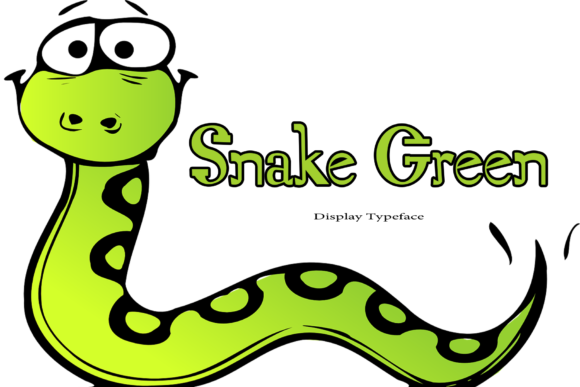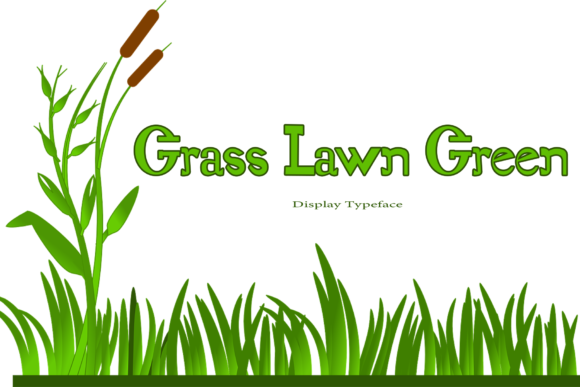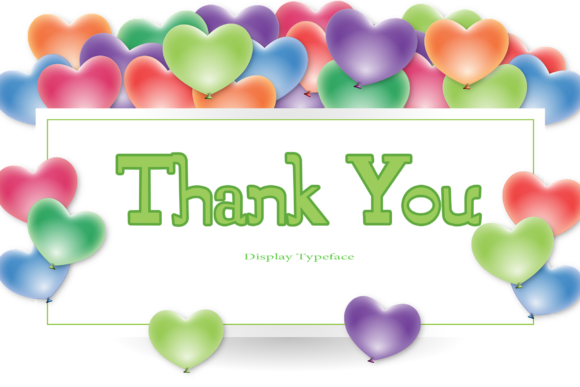
Baby Boy Font: Elevate Your Designs with a Unique Serif Style
In the world of typography, fonts play a crucial role in making or breaking a design. For designers and crafters looking to add a touch of uniqueness and attractiveness to their product designs, the Baby Boy font is an excellent choice. This specially crafted serif font boasts a creative design that sets it apart from more traditional typography, making it perfect for those seeking to elevate their visual creations.
What Makes Baby Boy Font Stand Out?
The Baby Boy font is not just another serif font; it’s a unique blend of classic and modern design elements. Its distinctive shape and creative flair make it an eye-catching addition to any design project. Whether you’re working on branding, packaging, or digital content, this font can help you achieve a look that’s both sophisticated and engaging.
Key Features of Baby Boy Font
- Unique Serif Design: The Baby Boy font features a specially designed serif style that gives it a unique personality. The serifs are carefully crafted to add a touch of elegance and sophistication to your designs.
- Creative Flair: What sets Baby Boy apart is its creative design elements. The font incorporates subtle nuances that make it stand out in a crowd, perfect for designers looking to add a bit of flair to their work.
- Versatility: Despite its unique design, the Baby Boy font is surprisingly versatile. It can be used across a range of design projects, from luxury branding to digital content creation.
- Easy to Read: While the font has a distinctive look, it’s also designed with readability in mind. This makes it suitable for both headings and body text, offering flexibility in your design choices.
Who Can Benefit from Using Baby Boy Font?
The Baby Boy font is ideal for a wide range of designers and crafters, including:
- Graphic Designers: Looking to add a unique touch to branding, logos, and marketing materials.
- Digital Content Creators: Seeking to make their blog posts, social media content, and digital publications stand out.
- Crafters and Makers: Creating handmade products, such as greeting cards, invitations, and DIY crafts, who want to add a professional touch.
- Web Designers: Needing a font that combines style with readability for websites and landing pages.
How to Use Baby Boy Font Effectively
To make the most of the Baby Boy font, consider the following tips:
- Pair with Complementary Fonts: Use Baby Boy as a headline font and pair it with a simpler sans-serif font for body text to create visual hierarchy.
- Experiment with Colors: While the font itself is a standout, experimenting with different colors can further enhance its impact. Consider contrasting colors to make your text pop.
- Adjust Letter Spacing: For a more customized look, play around with letter spacing. This can help improve readability and add a unique touch to your design.
The Baby Boy font is a game-changer for designers and crafters looking to infuse their projects with a unique and attractive serif style. Its creative design, combined with readability and versatility, makes it an excellent addition to any design toolkit. Whether you’re aiming to create stunning visual content, enhance your brand’s aesthetic, or simply add a professional touch to your handmade crafts, the Baby Boy font is sure to exceed your expectations.